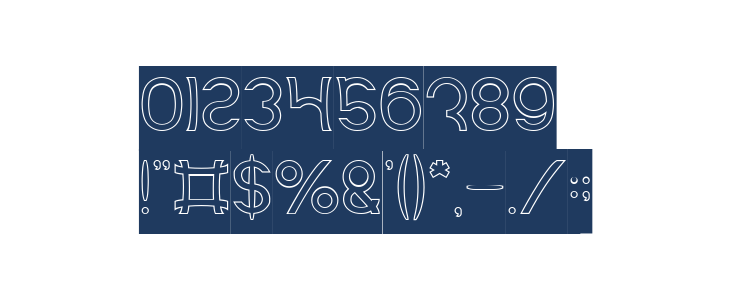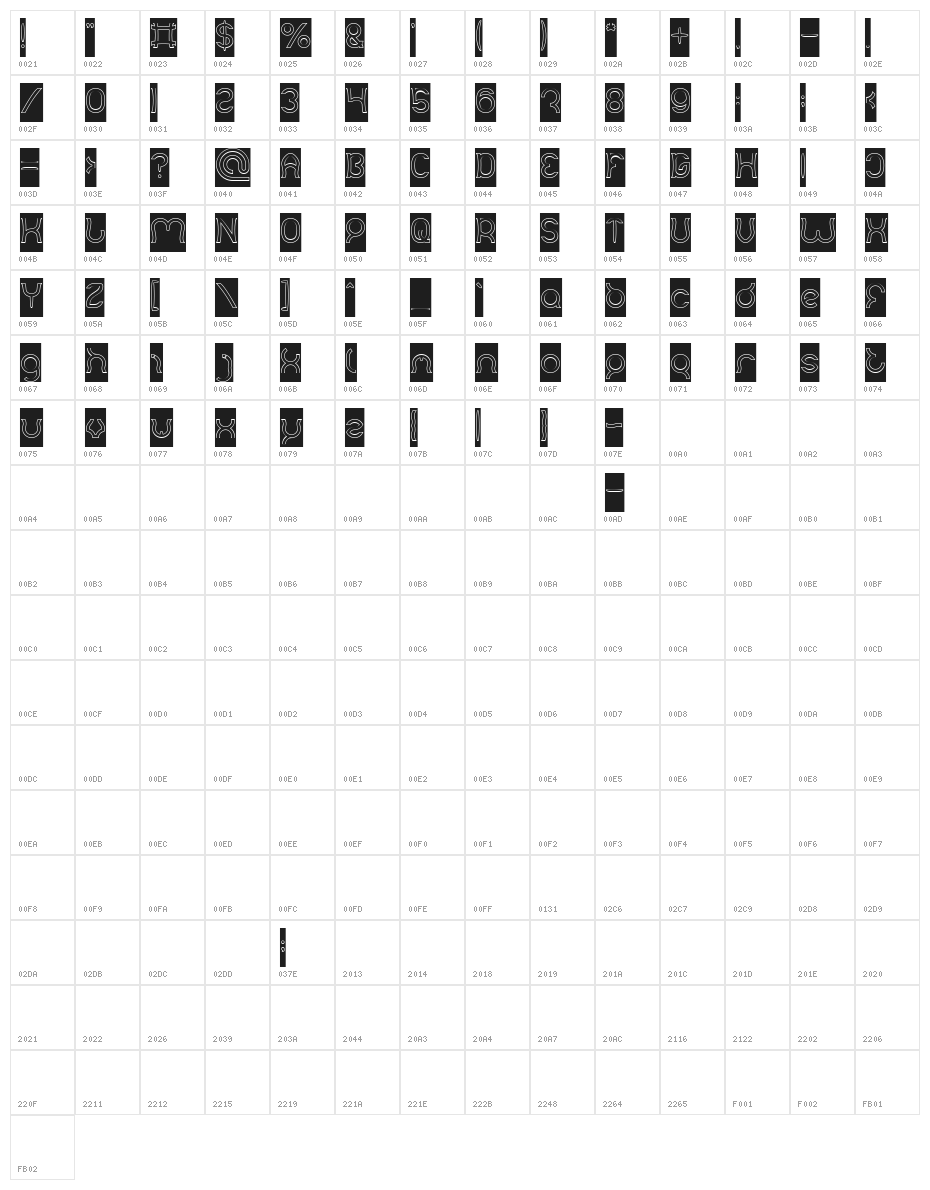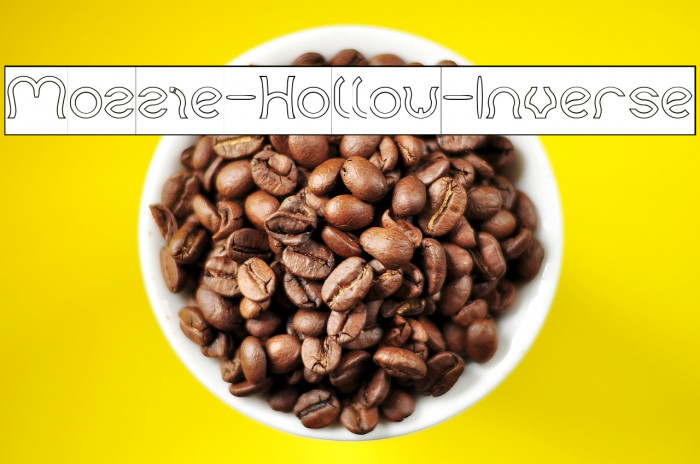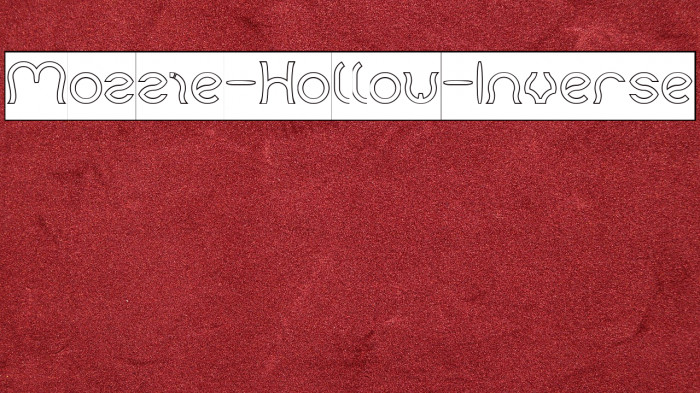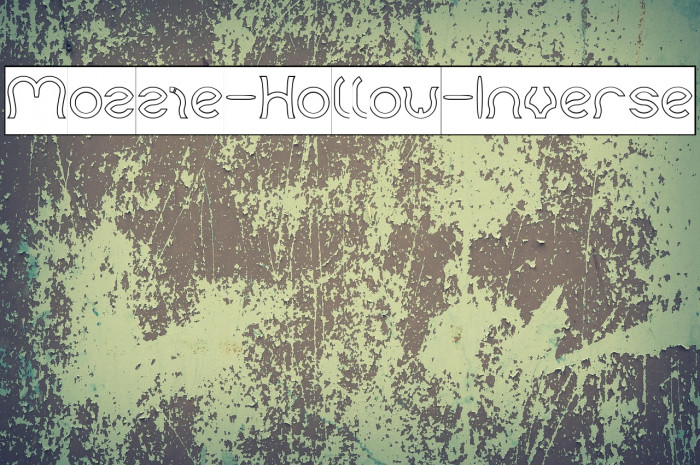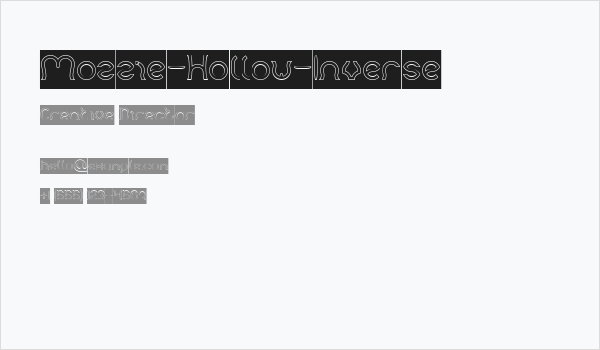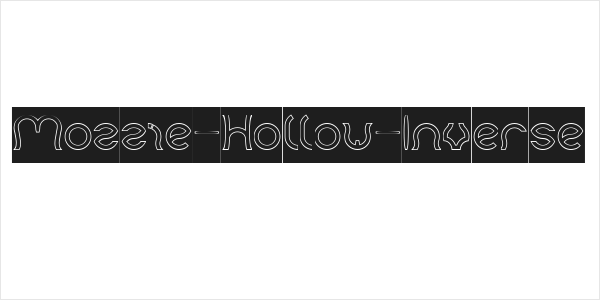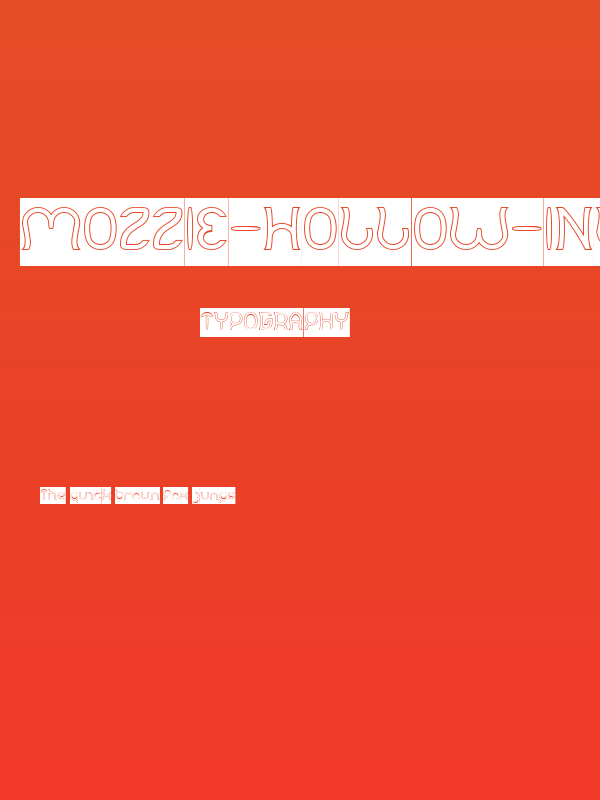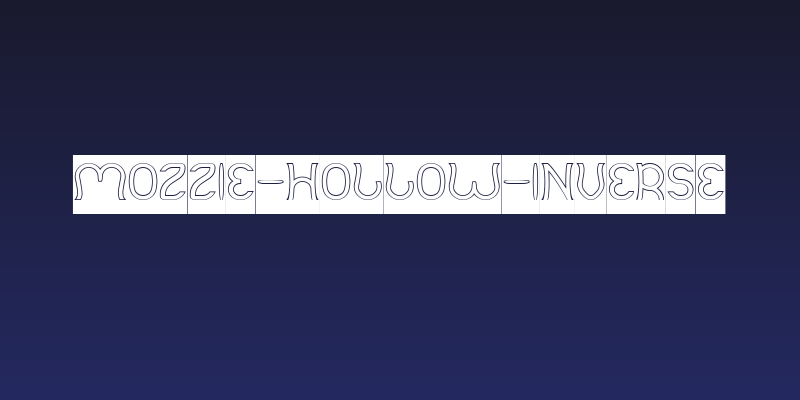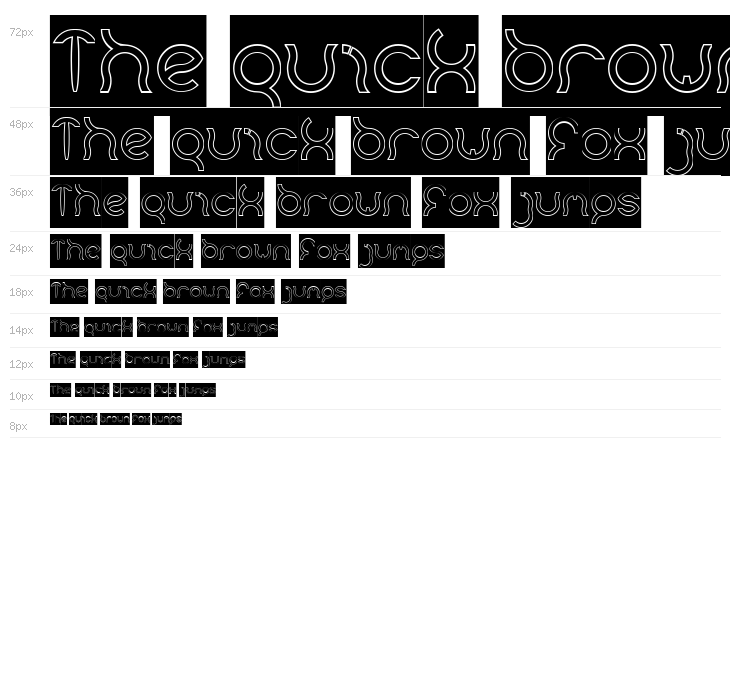
Mozzie-Hollow-Inverse Font
Mozzie-Hollow-Inverse Description
This font features a unique hollow design with an inverse style, creating a striking visual effect. The characters are outlined with a consistent stroke width, giving them a bold appearance despite the hollow centers. The design incorporates smooth curves and sharp angles, resulting in a modern and artistic look. The uppercase and lowercase letters maintain a cohesive style, while the numbers and special characters complement the overall aesthetic. This font's distinctive appearance makes it suitable for creative and eye-catching designs.